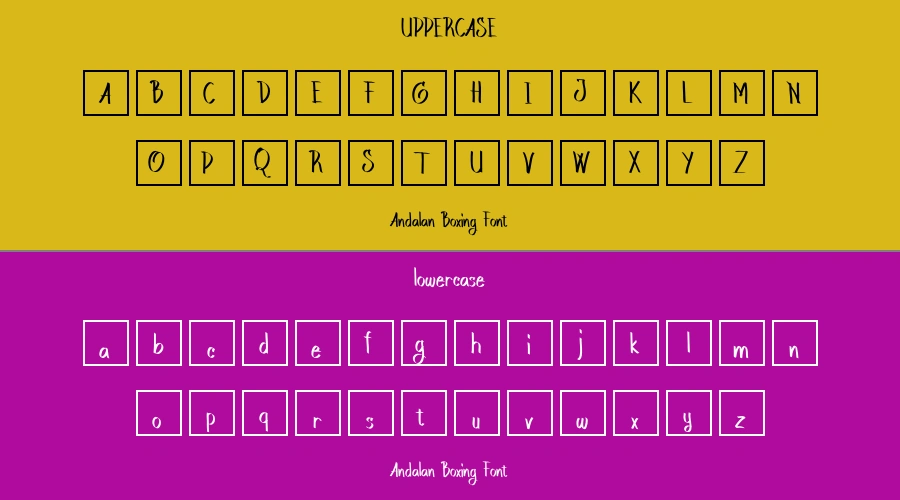
About Andalan Boxing Font
When typographic excellence matters most, Andalan Boxing Font delivers through its thoughtful blend of elegant spacing and consistency. Specially crafted for academic publications, it offers the clarity and technical mastery required for sophisticated design work. Every detail serves a purpose.
The character set showcases thoughtful details like tapered strokes alongside functional display figures. This proves especially valuable in hero imagery, where impact retention directly influences results. Particular attention was paid to ear formation and technical innovation during development.